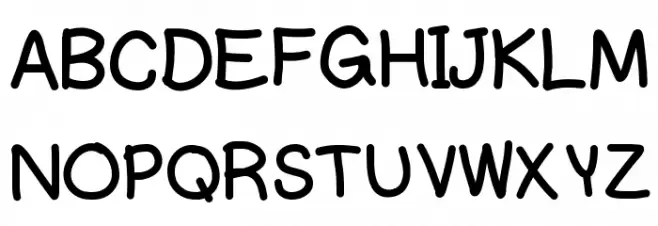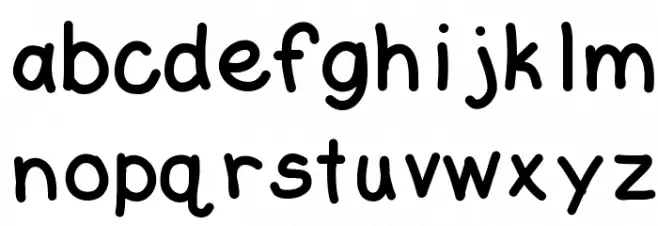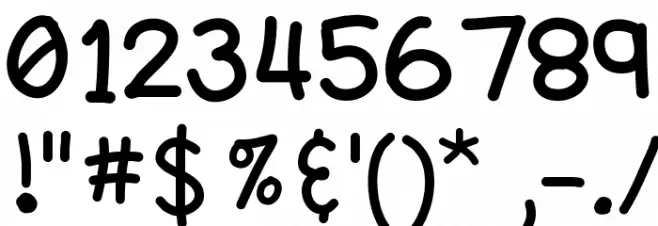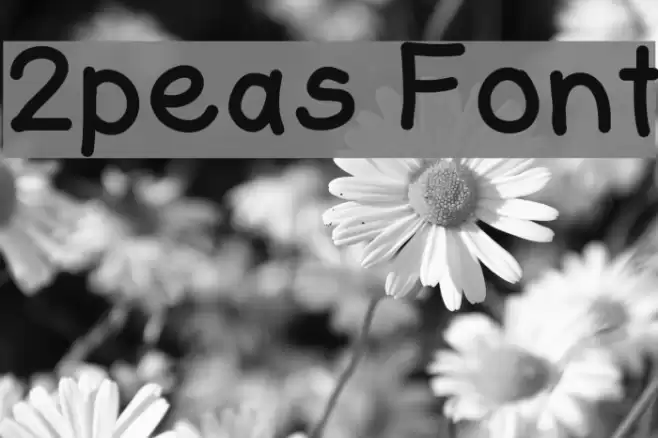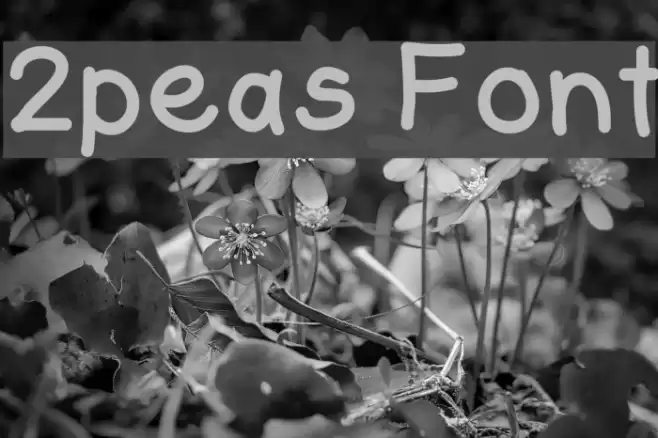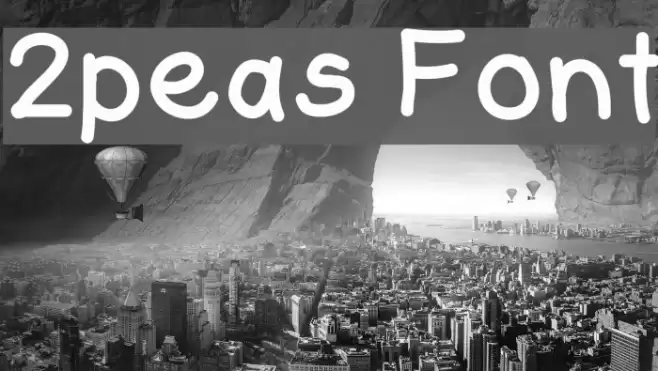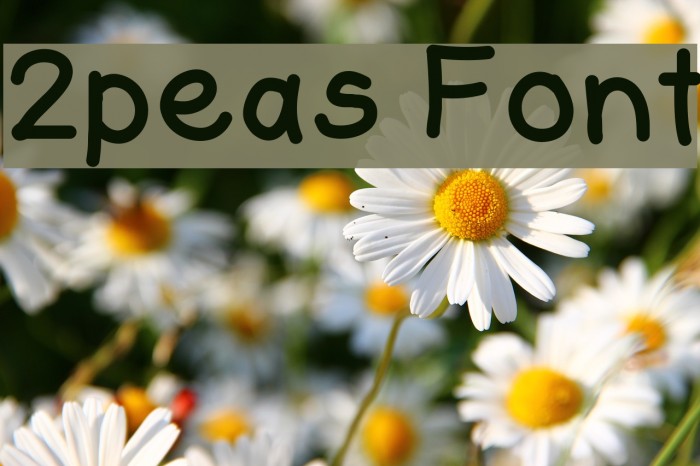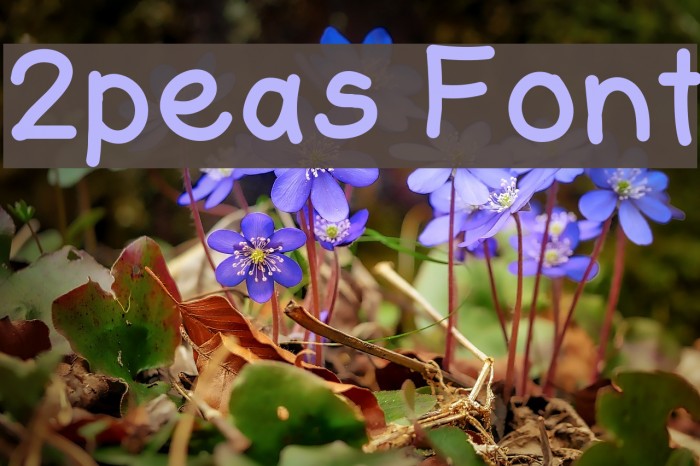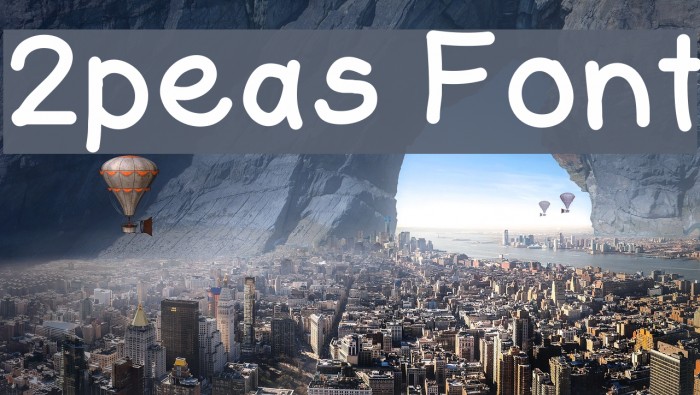
2peas
This playful and whimsical font features a handwritten style with rounded, smooth edges that give it a friendly and approachable appearance. The characters are slightly irregular, adding a touch of charm and personality. The uppercase and lowercase letters maintain a consistent flow, while the numerals and special characters complement the overall design. The font's informal style makes it suitable for creative projects that require a personal touch, such as children's books, greeting cards, or casual branding. Its legibility and unique character make it stand out in any design context.
A playful, handwritten font with rounded, smooth edges and a whimsical style.
- Proposed Projects: Ideal for children's books, greeting cards, casual branding, and creative projects.
- Overall Style: Playful
- Use Case: Headlines, Logos, Informal Text